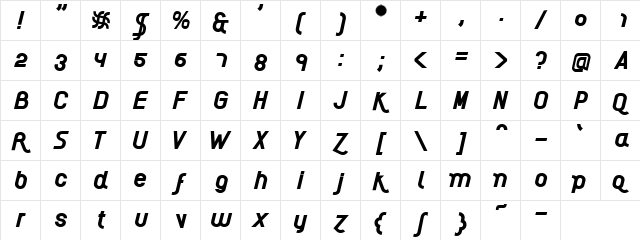
AI kelso BI
Design Context for AI kelso Typeface
AI kelso takes a measured approach to typography — its balanced proportions and neutral character make it a reliable workhorse for both digital and print work.